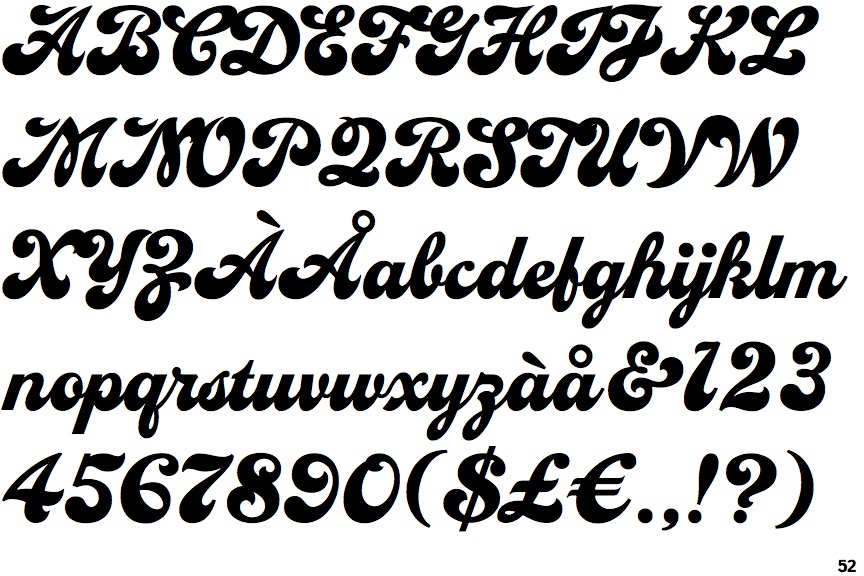
Casey Font
Casey Font is perfect for friendly neighborhood businesses, approachable service companies, warm community organizations, casual restaurant branding, local retail store signage, family-oriented marketing, welcoming healthcare practices, and accessible nonprofit communications. This personable typeface excels in applications where human warmth and approachable friendliness are essential for creating inviting and trustworthy brand experiences that foster genuine connections.
What makes Casey Font truly exciting is its authentic embodiment of neighborly warmth and personal approachability that captures the genuine friendliness of small-town communities and the welcoming spirit of people-centered businesses. The font features rounded, friendly letterforms with gentle curves and personable character details that mirror the warmth of a genuine smile and the comfort of familiar conversation. Its approachable personality and human character create an immediate sense of trust and accessibility that resonates with audiences seeking authentic personal connections and community-focused services. The typeface's friendly appeal and neighborhood charm make it perfect for brands wanting to convey warmth, accessibility, and connection to the fundamental values of community service and personal care.
The Casey Font family includes regular and bold weights with friendly styling, complemented by approachable alternates and community-inspired decorative elements. The font offers comprehensive character sets with welcoming symbols, friendly ligatures, and personable styling details that enhance its warm aesthetic. Additional graphic elements including community patterns, friendly motifs, neighborly ornaments, and welcoming flourishes provide designers with complete branding tools rooted in community values and personal service traditions.